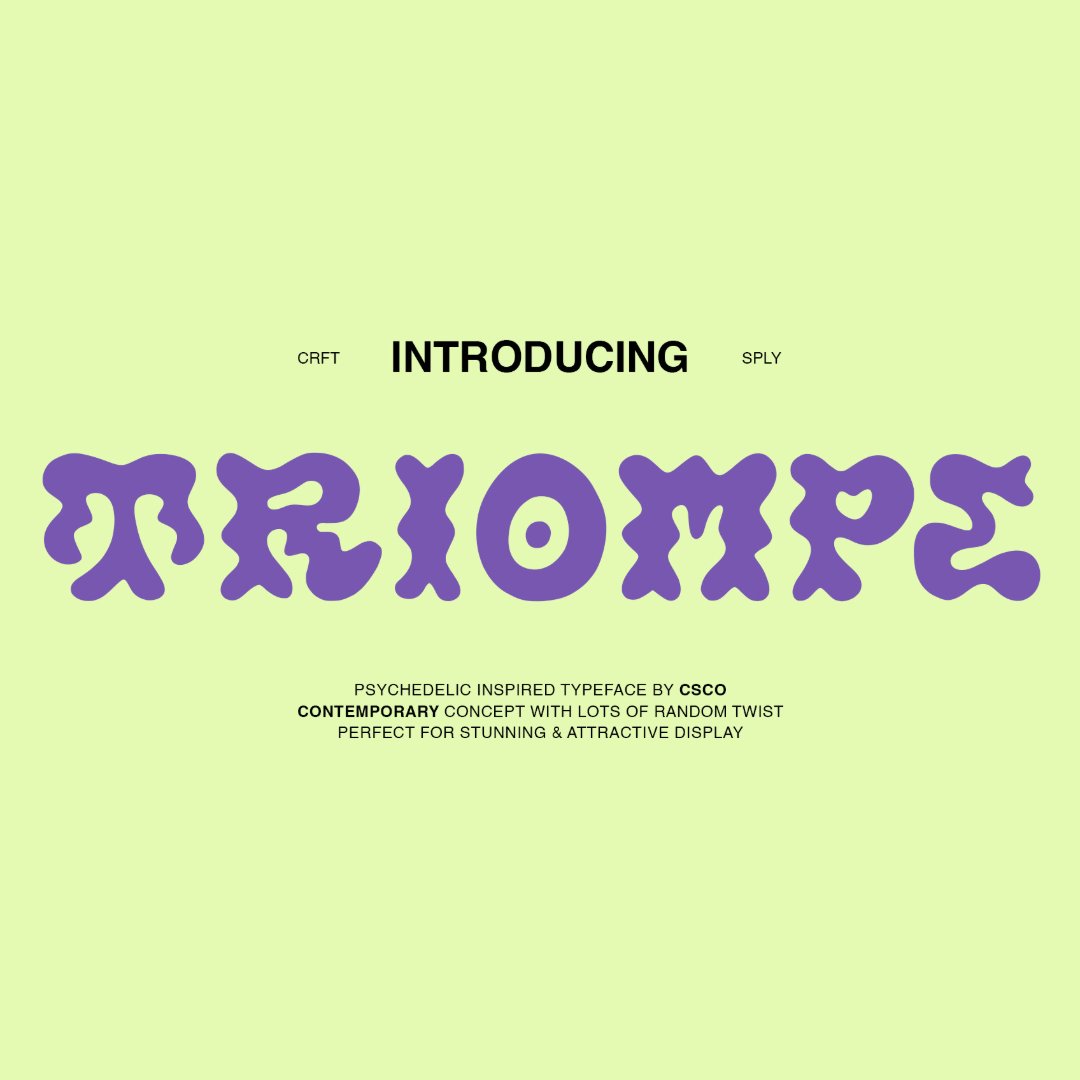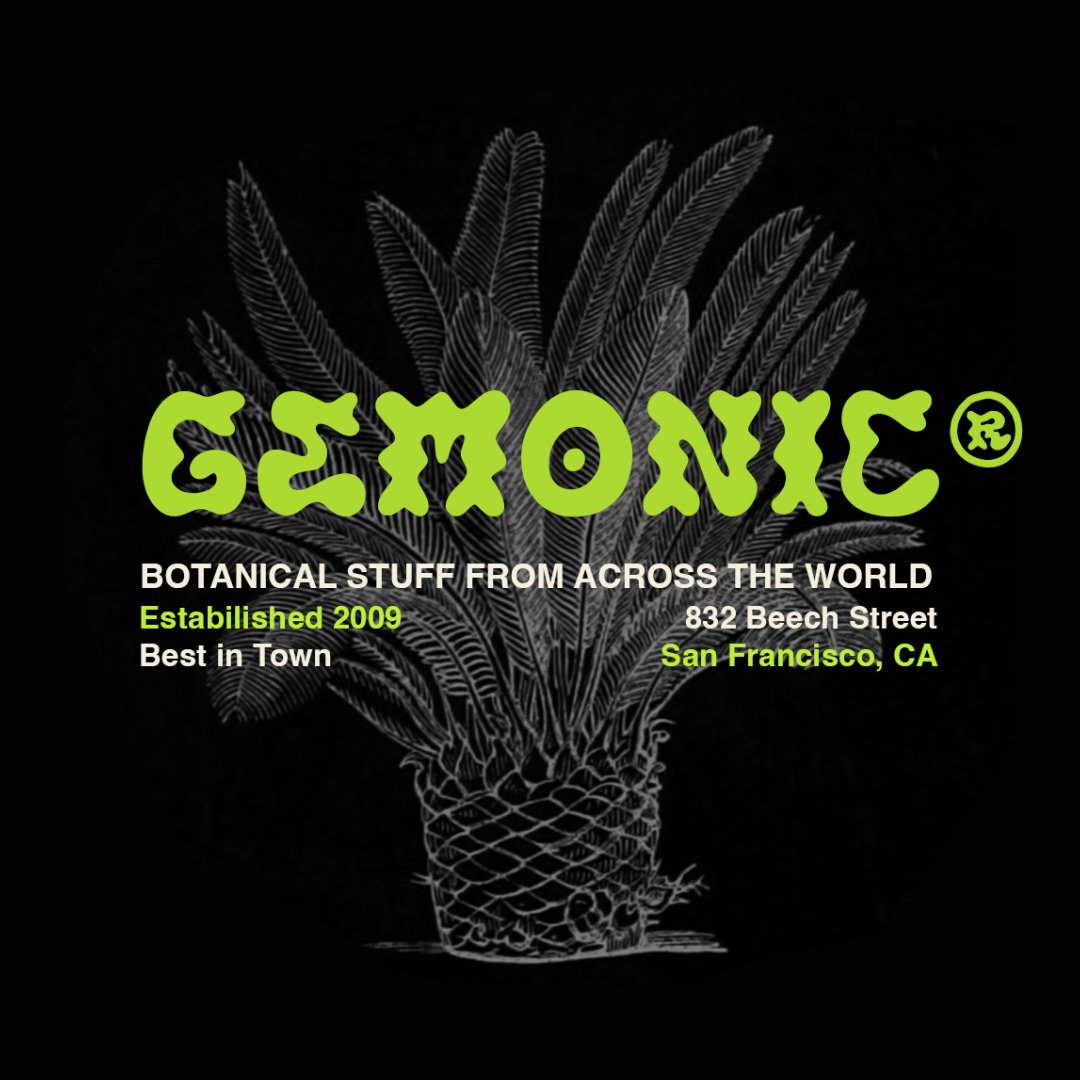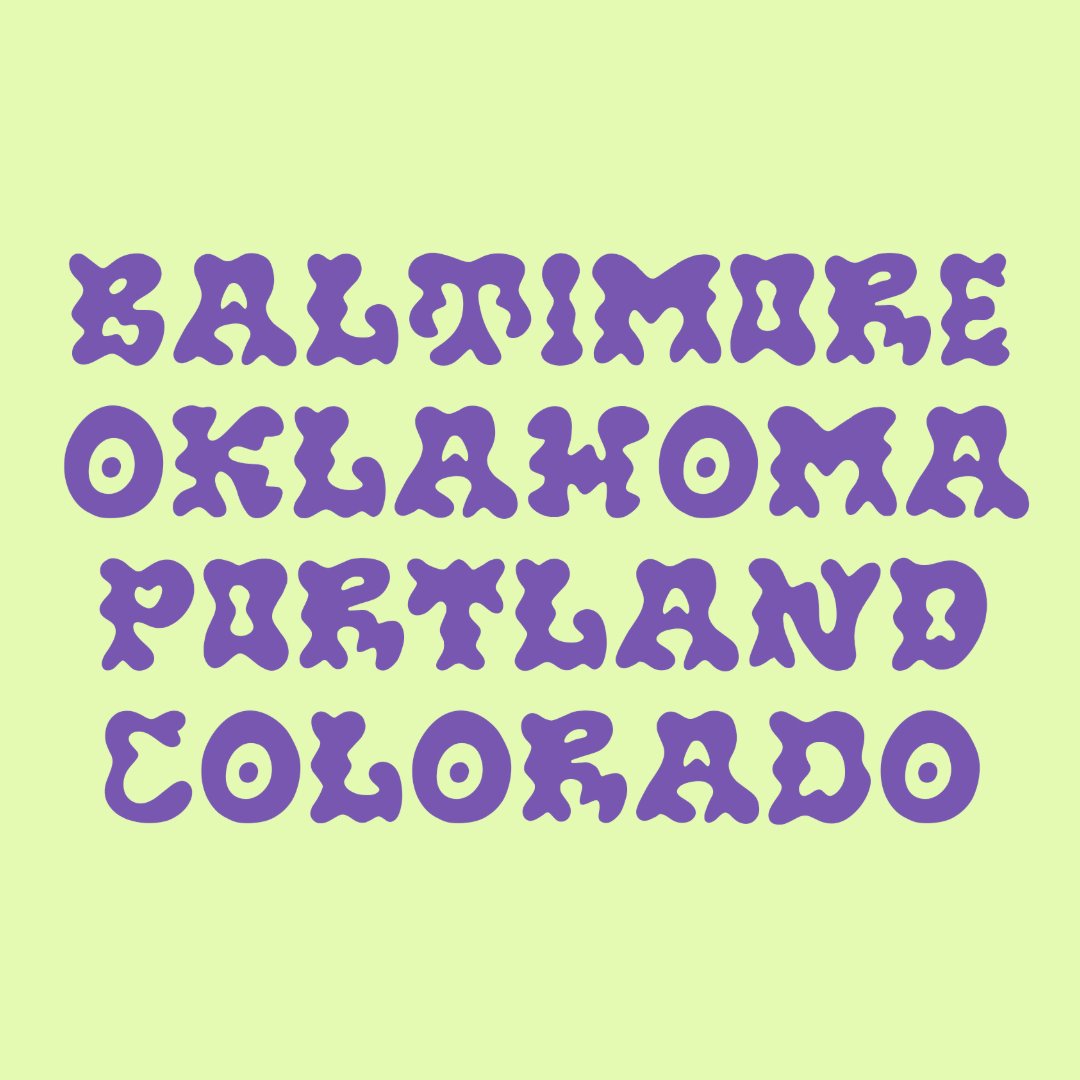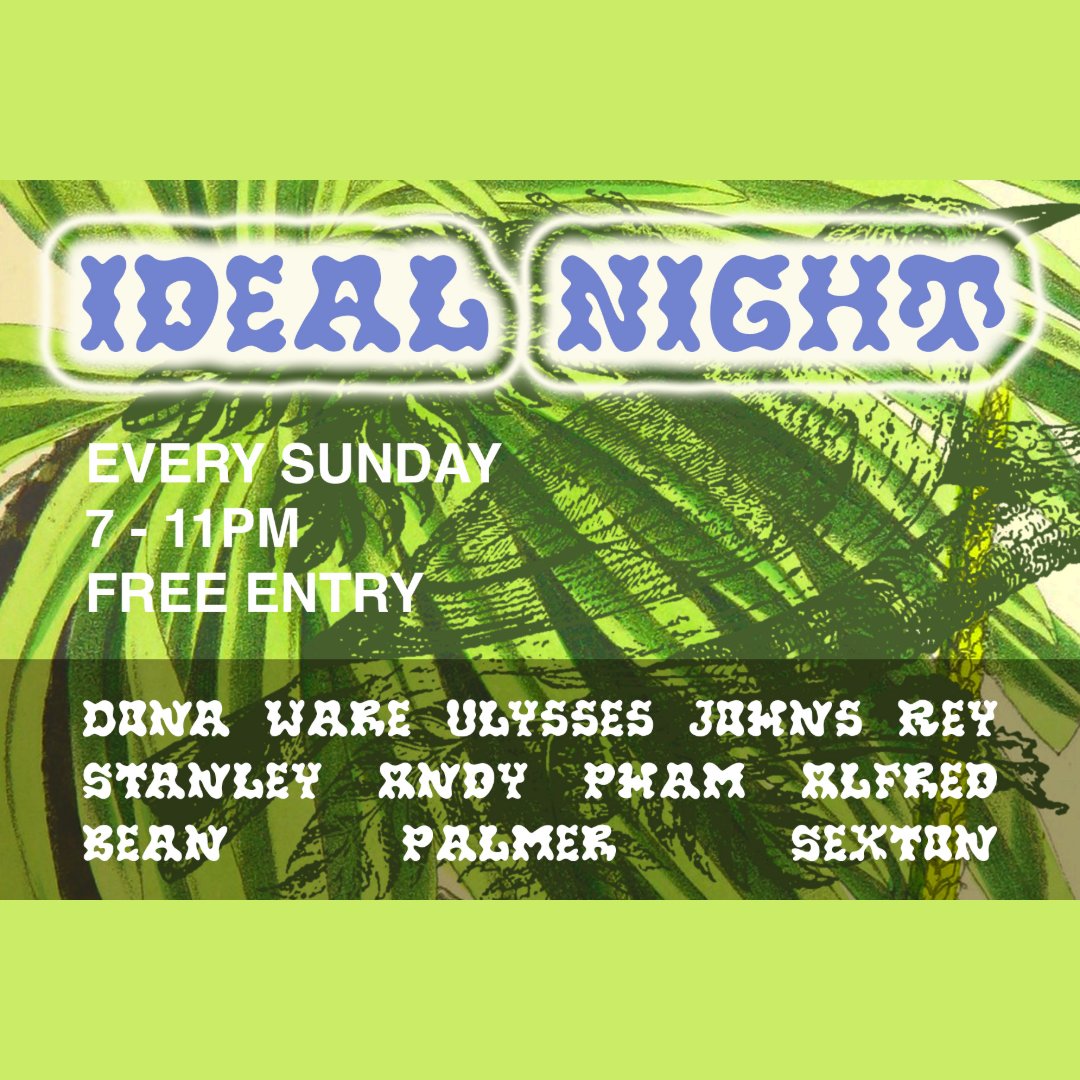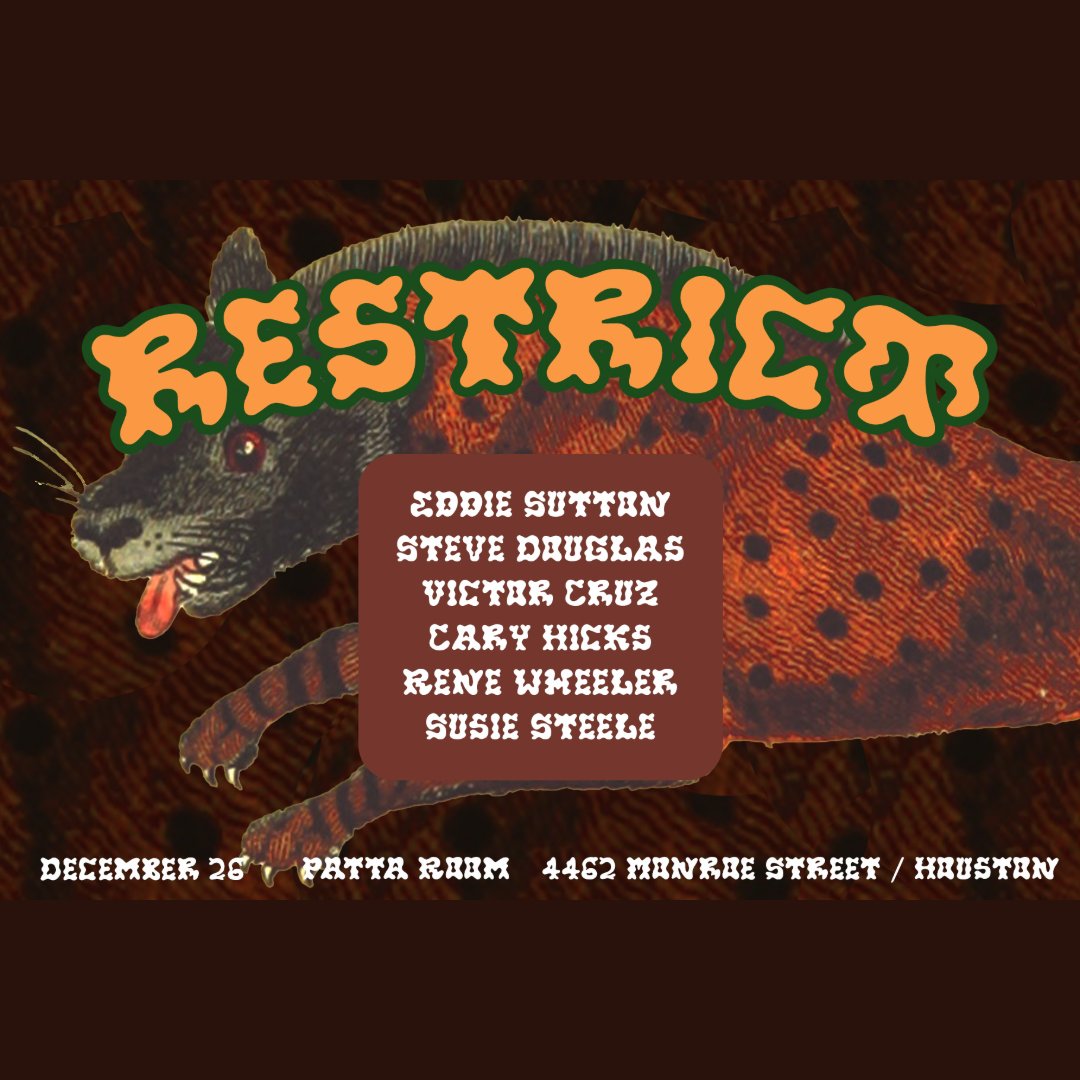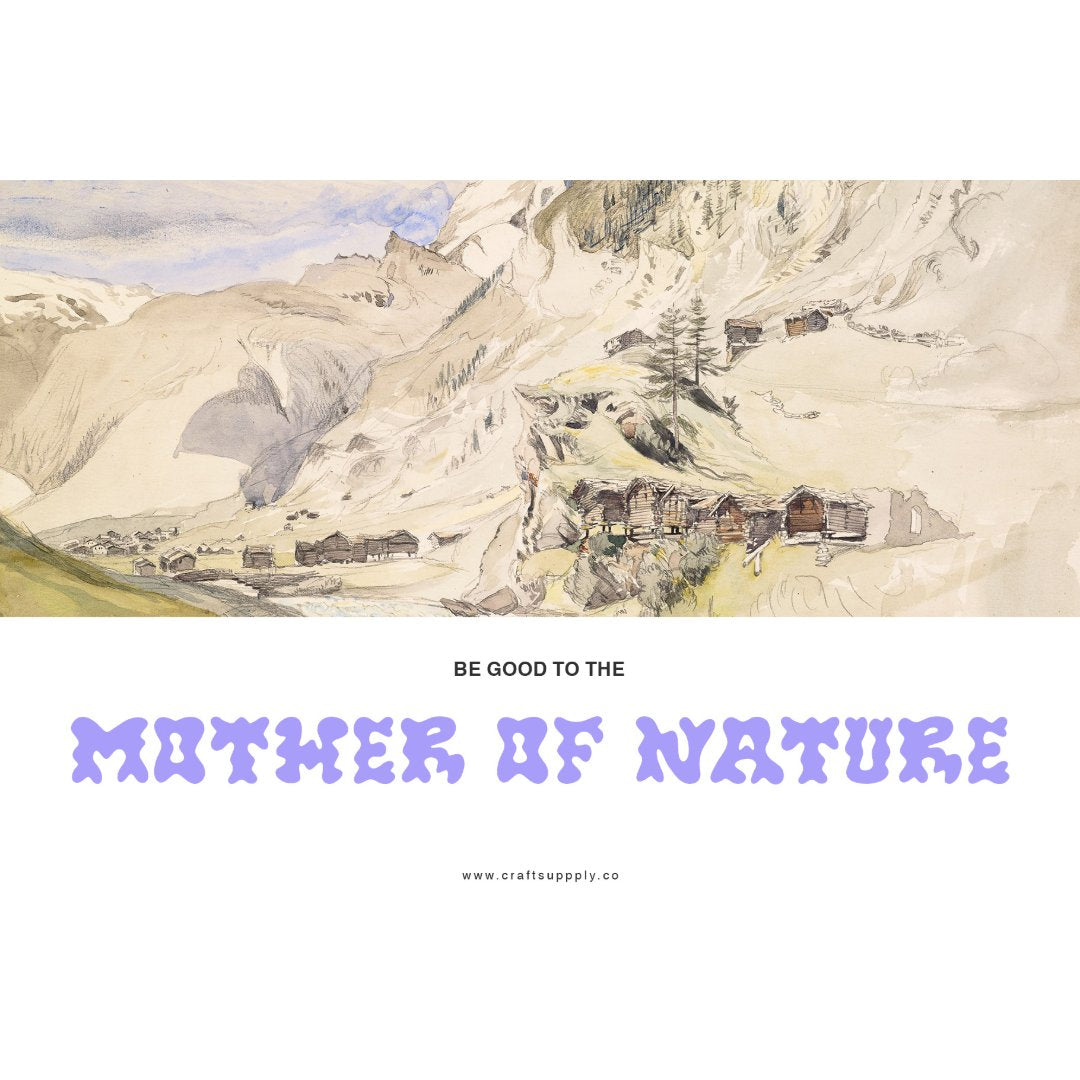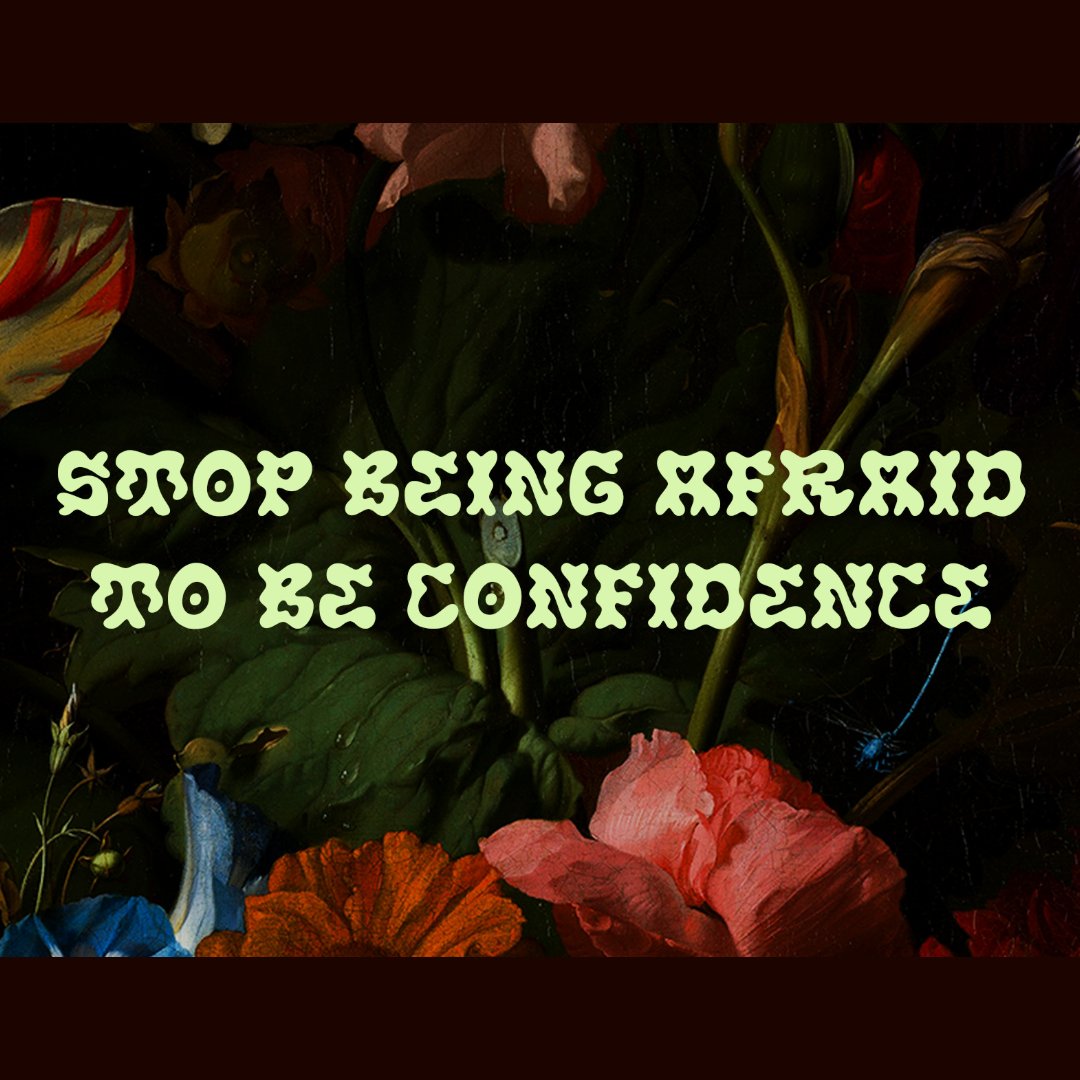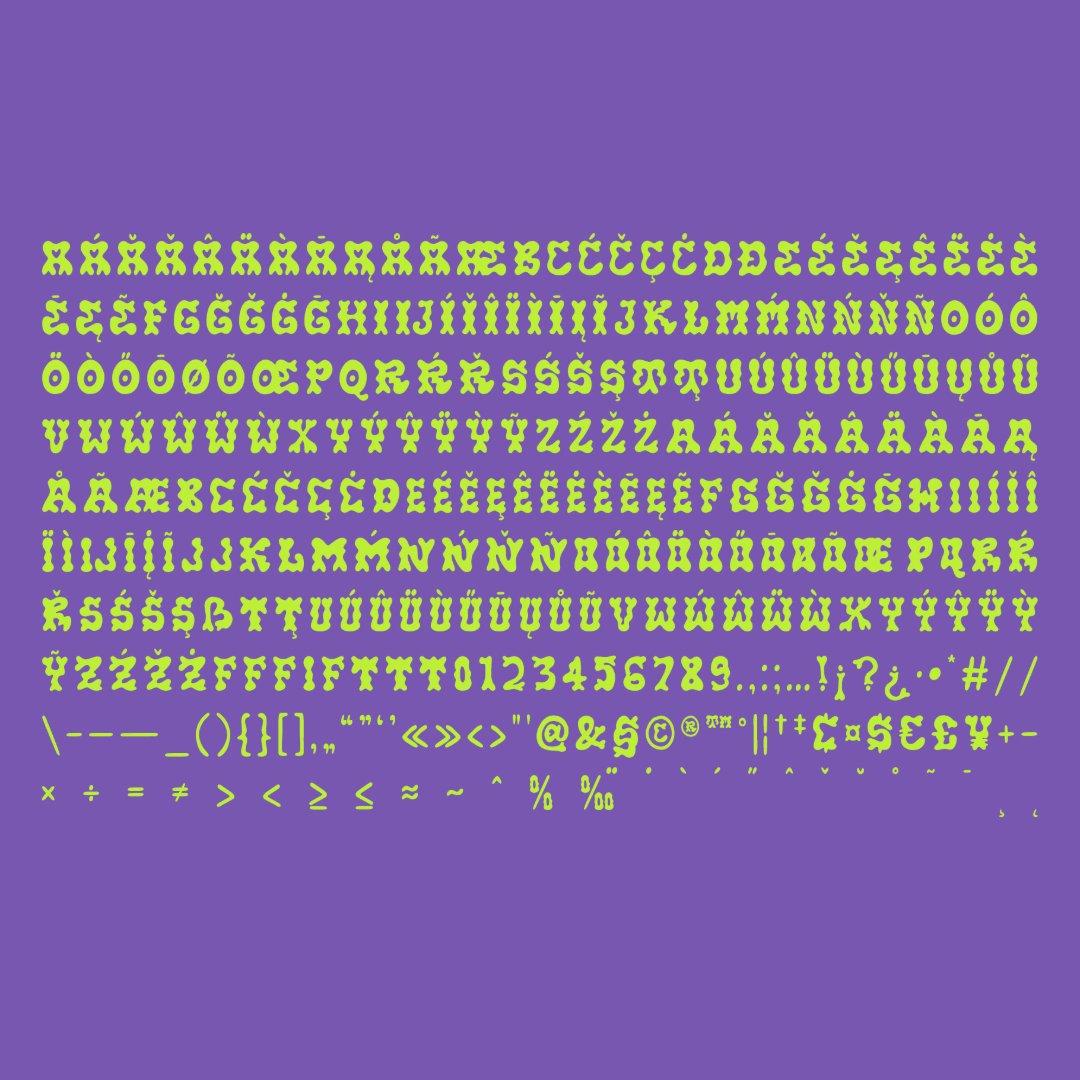
Triompe – Psychedelic Typeface
Triompe Psychedelic Typeface is a psychedelic font that is captivatingly bold and dynamic. Triompe features a contemporary concept with a lot of random twists, creating a trippy and mesmerizing effect. Its distinctive design element makes it perfect for any project in need of an eye-catching display.
Triompe is outstanding in all kinds of design contexts. Be it a greeting card, package design, brand identity, or craft project, this typeface gives it an extraordinary flair to attract one’s attention. It looks equally great when used in book titles, posters, pop vintage designs, and retro looks. The vibrant and energetic character of Triompe gives it just the right fit for any project when fun and creativity are desired.
Unleash your imagination with Triompe Psychedelic Typeface, its playful bold design allows trying out experiments and creating eye-catching results. Be it professional branding or a personal DIY project, this typeface just adds the right touch to your designs, making them look trendy and unique.
Triompe Psychedelic Typeface is a bold and dynamic font featuring a contemporary design with random twists for a captivating effect. It includes uppercase and lowercase letters, numerals, punctuations, multilingual accents, and is PUA encoded, making it suitable for a variety of design projects.